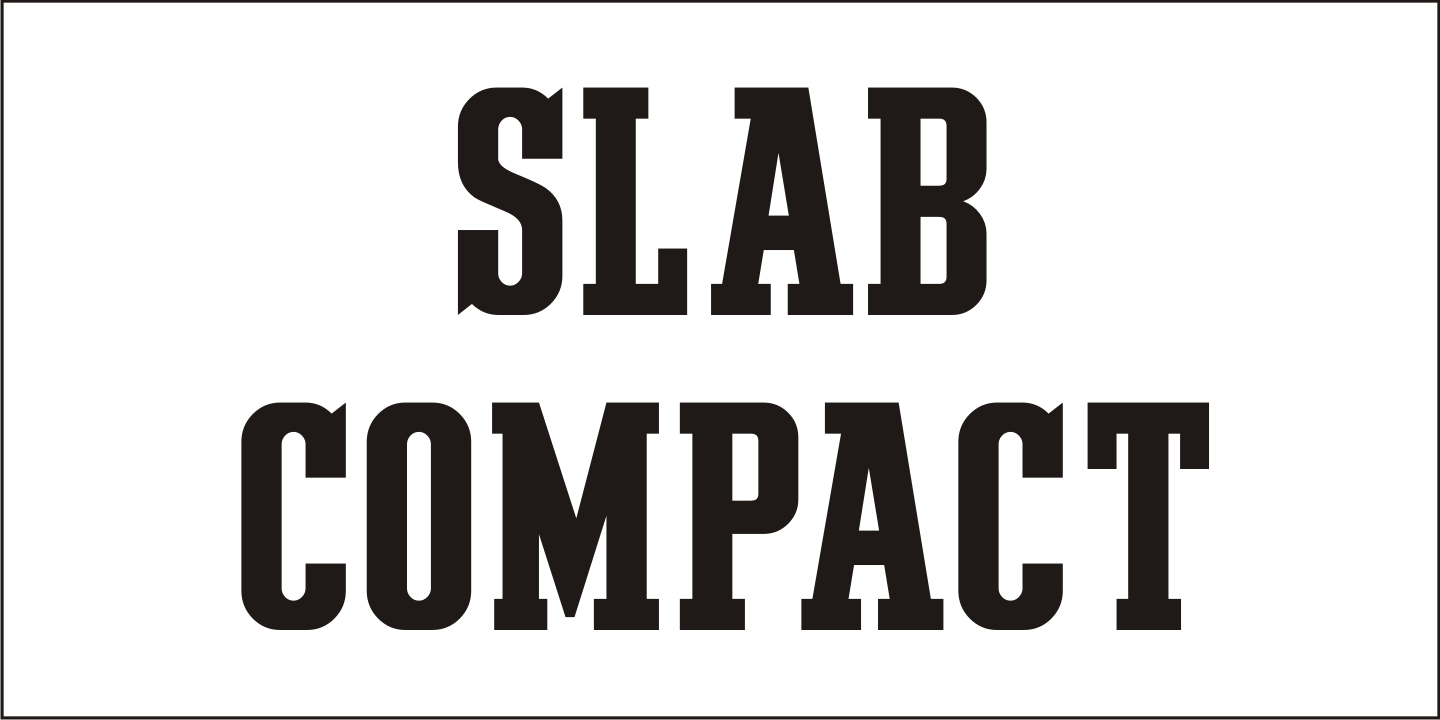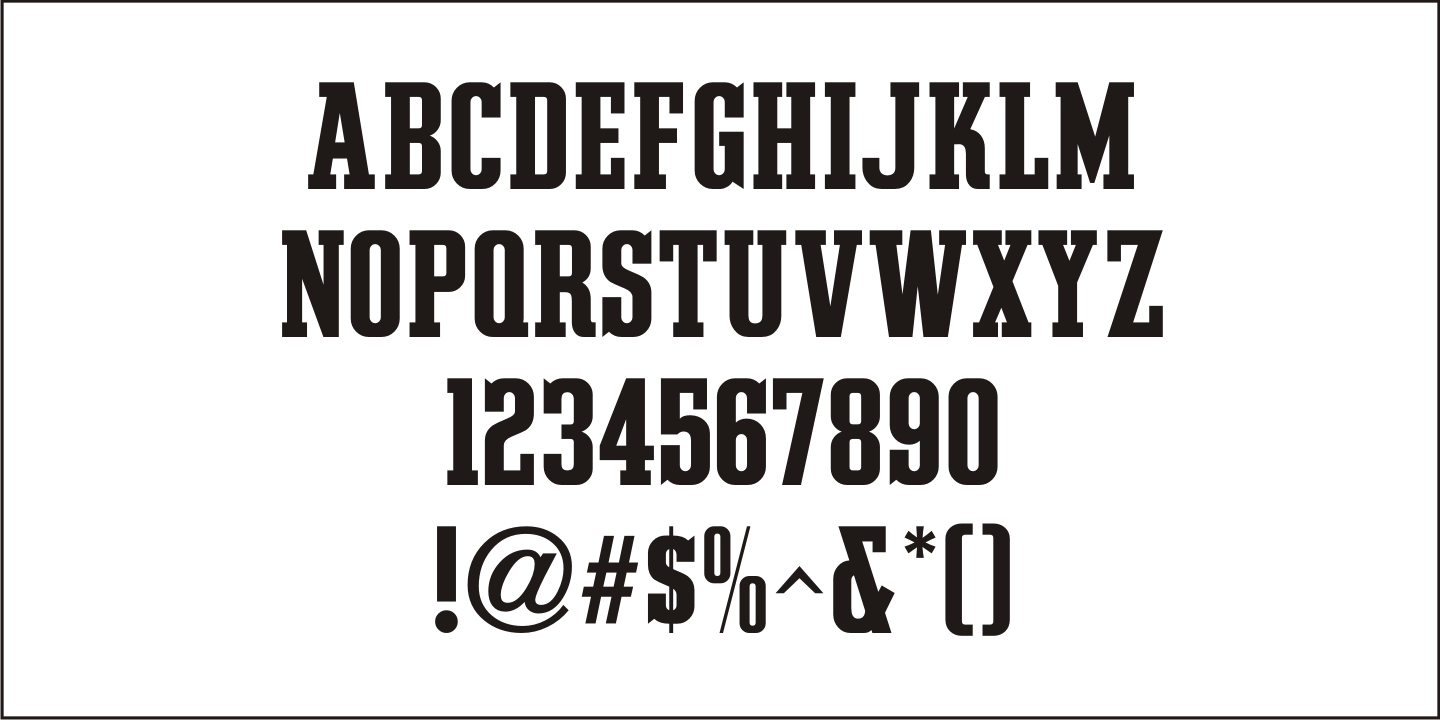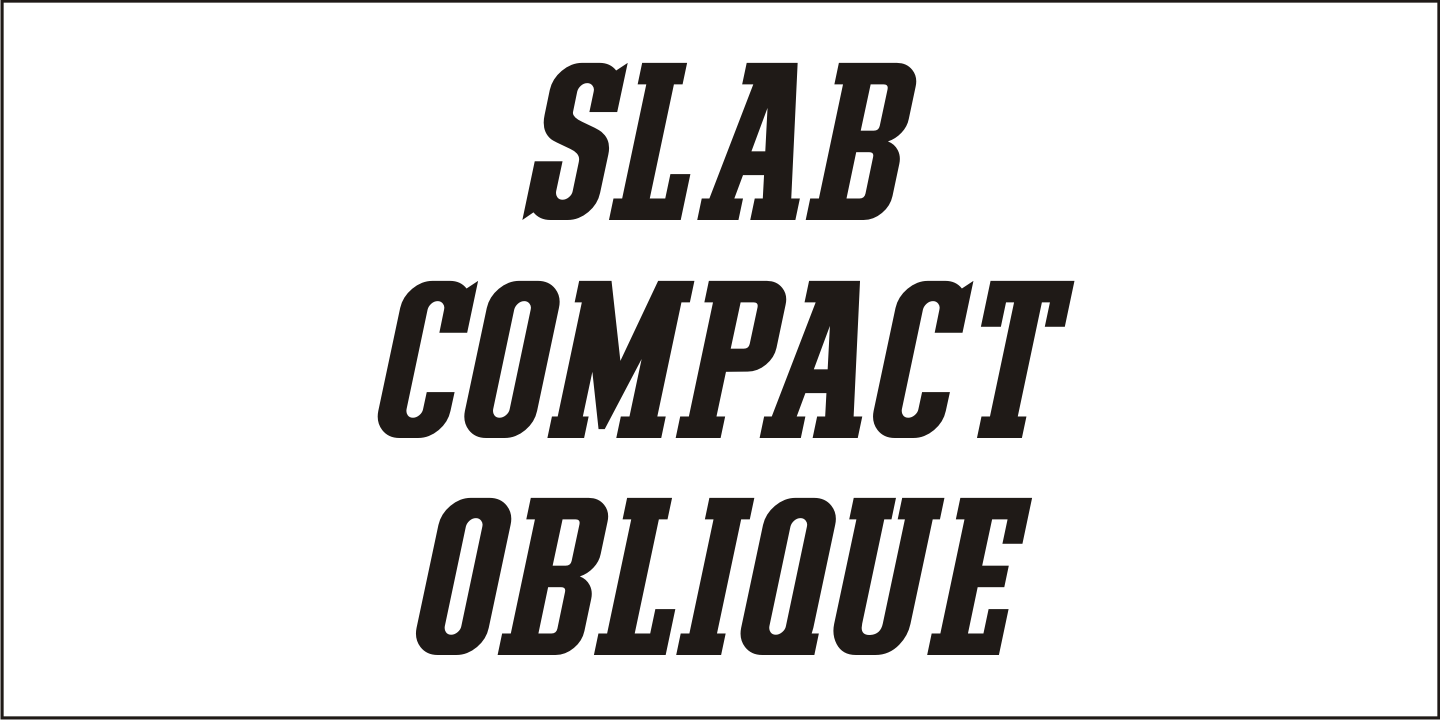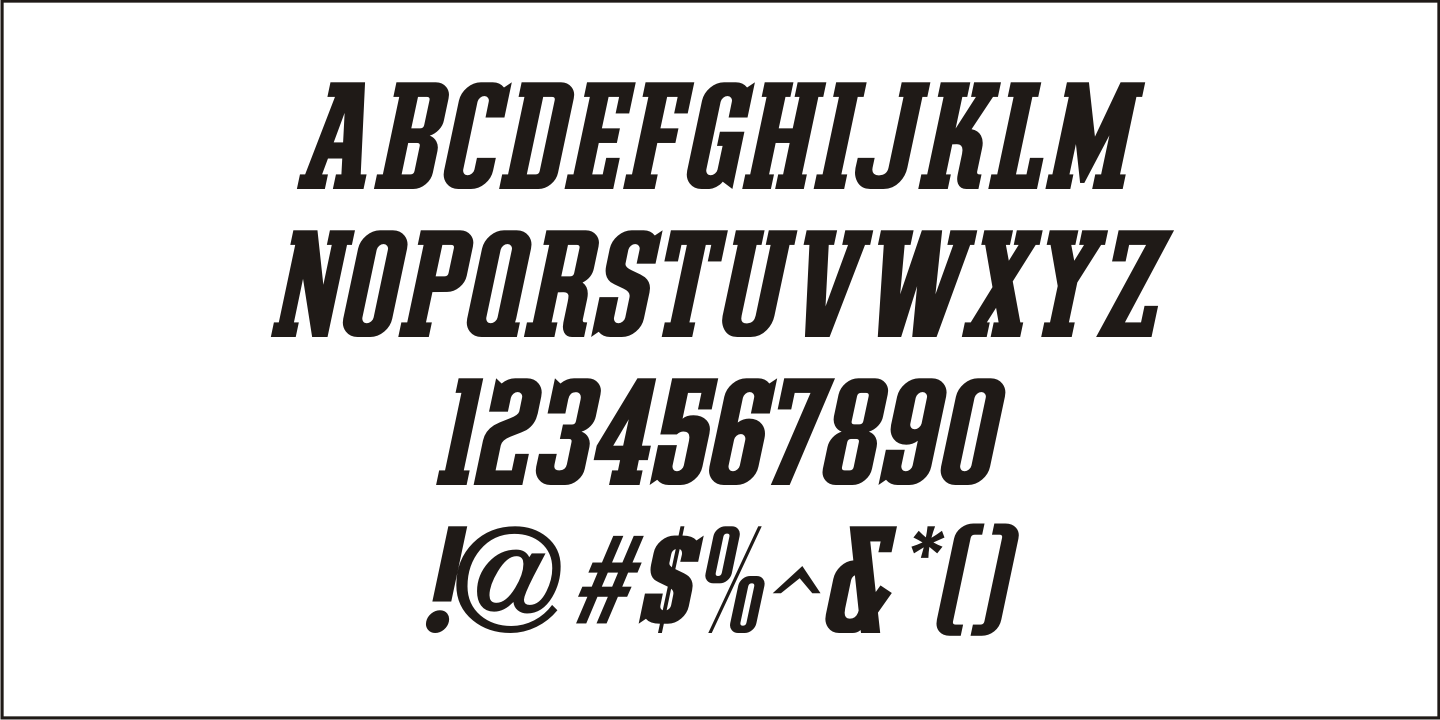
Slab Compact
Slab Compact JNL was based on the printed title found on the box cover of a 1950s-era word games set called 'Lex-O-Grams' and is available in both regular and oblique versions.
Slab Compact JNL Regular by Jeff Levine Fonts